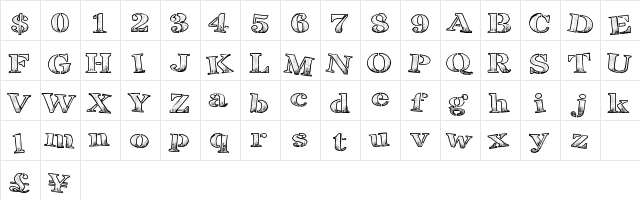
BreakTime Regular
| Foundry | Xerographer Fonts |
| Designer | Xerographer Fonts Max Infeld |
Design Context for BreakTime Typeface
BreakTime is a composed and adaptable typeface that performs quietly and consistently across a wide range of design contexts.